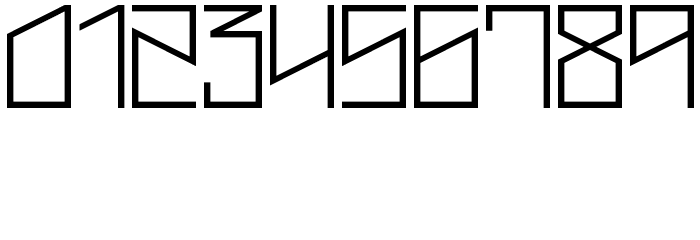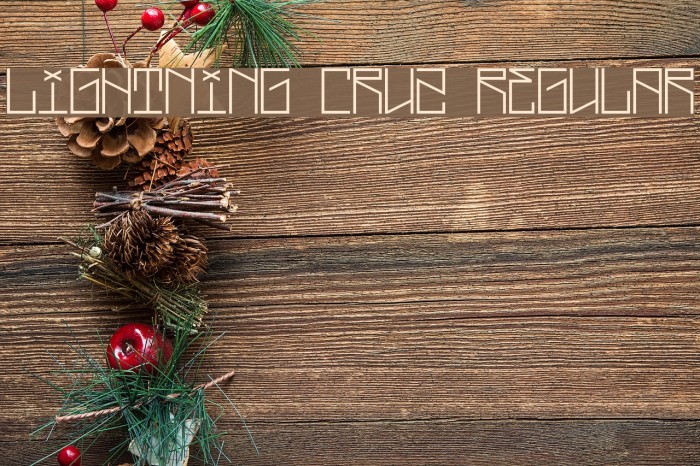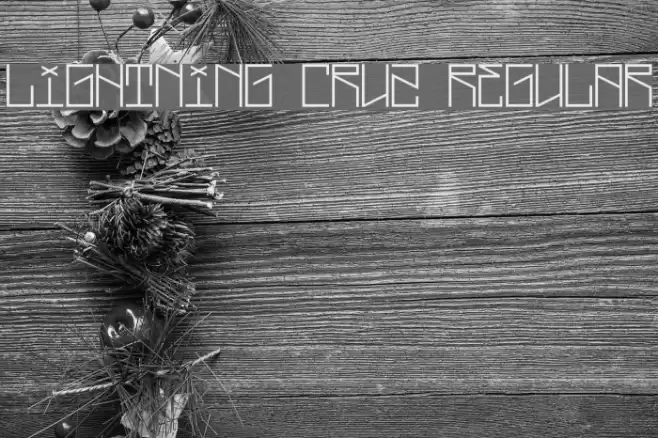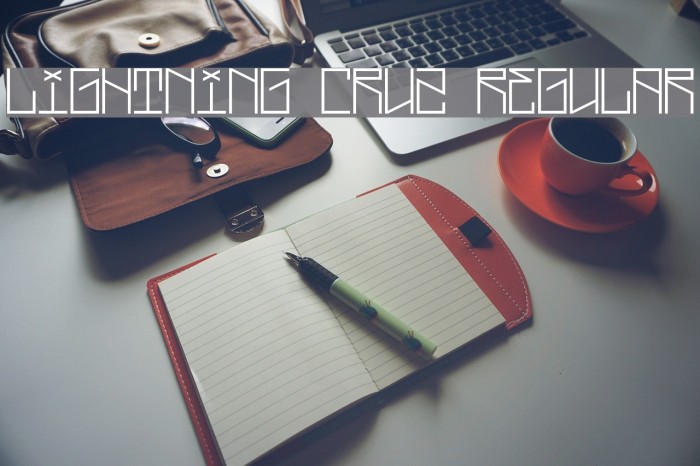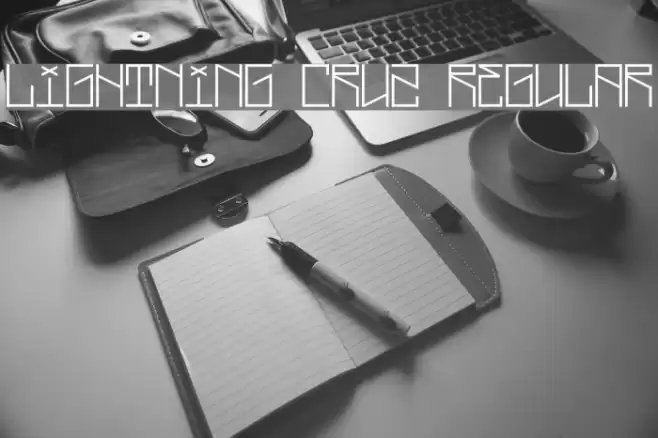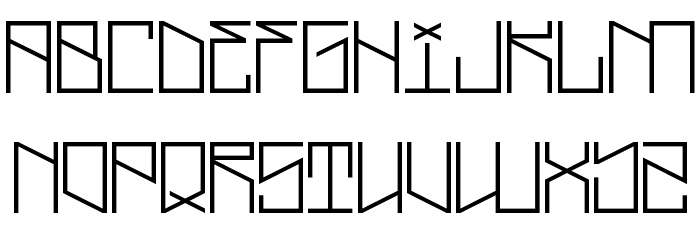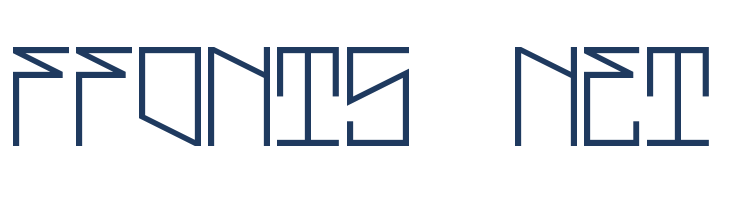
Lightning Cruz Regular Font
Lightning Cruz Regular Description
This font features a geometric and angular design, characterized by its sharp lines and distinct edges. The uppercase and lowercase letters maintain a consistent height, creating a uniform appearance. The font's structure is reminiscent of digital or futuristic styles, with a minimalistic approach that emphasizes clarity and precision. The numerals and special characters follow the same design principles, ensuring a cohesive look across all elements. The overall aesthetic is modern and sleek, making it suitable for projects that require a contemporary and tech-inspired feel.